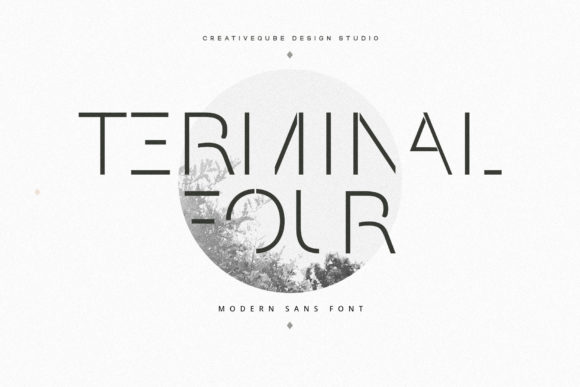
Terminal Four: A Bold, Modern Font for the Digital Age
In a world where visual communication is more important than ever, the right font can make all the difference. Terminal Four is a modern and cool display font that stands out with its clean, all-caps design. It’s not just another typeface—it’s a tool for making a statement. Whether you're designing a wedding invitation, a brand logo, or a digital poster, Terminal Four offers a fresh, contemporary look that resonates with today's aesthetic sensibilities.
The rise of minimalist design and bold typography has made fonts like Terminal Four increasingly relevant. In an era where attention spans are short and competition for visual impact is high, using a font that commands attention without being overwhelming is key. Terminal Four fits this need perfectly, offering a sleek, professional appearance that works across a variety of mediums and applications.
Why Terminal Four Matters in Modern Design
Design trends have shifted significantly in recent years. The move toward simplicity, clarity, and strong visual identity has led to a greater emphasis on typography. Fonts that are easy to read yet distinctive are now more valuable than ever. Terminal Four aligns with this trend by combining modernity with readability, making it ideal for both digital and print projects.
For professionals in fields like marketing, branding, and content creation, Terminal Four provides a versatile option that can be used in everything from social media posts to business cards. Its all-caps format ensures consistency and visual impact, while its clean lines make it suitable for a wide range of styles—from corporate to creative.
Businesses and entrepreneurs are also finding value in Terminal Four. In a competitive market, having a unique visual identity can set a brand apart. Using a font like Terminal Four helps create a memorable impression, reinforcing brand recognition and professionalism.
Trends Shaping the Demand for Modern Display Fonts
The increasing use of digital platforms has changed how people interact with text. From websites to mobile apps, the demand for visually appealing and functional typography has never been higher. Terminal Four meets this demand by offering a font that looks great on screens of all sizes, from desktop monitors to smartphones.
Another factor driving interest in fonts like Terminal Four is the growing preference for custom, unique designs. Generic fonts often feel impersonal, whereas custom or distinctive typefaces add personality and character. Terminal Four allows designers to express creativity while maintaining a professional edge, making it a go-to choice for those looking to stand out.
Moreover, the shift toward remote work and digital collaboration has made it easier for creators to access and use high-quality fonts. With cloud-based design tools and online font libraries, fonts like Terminal Four are more accessible than ever. This accessibility has contributed to their popularity among freelancers, small businesses, and independent creators who want to elevate their visual output.
Practical Applications of Terminal Four
Terminal Four is incredibly versatile, making it suitable for a wide range of projects. For example, in the wedding industry, it’s commonly used for invitations, signage, and stationery. Its bold, clean look adds a sense of elegance and sophistication, which is essential for special events.
In the realm of branding, Terminal Four can be used for logos, taglines, and promotional materials. Its all-caps format makes it ideal for creating strong, memorable brand identities. Many startups and established companies alike are turning to Terminal Four to give their brands a modern, cohesive look.
For educators and content creators, Terminal Four can enhance presentations, infographics, and educational materials. Its clear, readable design ensures that information is communicated effectively, whether it’s on a slide, a handout, or a digital platform.
How to Use Terminal Four Effectively
While Terminal Four is a powerful font on its own, it’s important to use it strategically. One of the best ways to leverage its strengths is to pair it with complementary typefaces. For instance, pairing it with a more traditional serif font can create a balanced, sophisticated look that works well for formal documents or websites.
Another tip is to use Terminal Four for headlines and key messages rather than body text. Its bold, all-caps style is most effective when used sparingly, allowing it to stand out without overwhelming the reader. This approach ensures that the font enhances the overall design rather than detracts from it.
Additionally, consider the context in which Terminal Four will be used. For digital projects, ensure that the font is optimized for web and screen readability. For print, check that it maintains its clarity and impact at different sizes and resolutions.
Terminal Four in the Broader Design Landscape
As trends continue to evolve, the demand for fonts that combine style with functionality will only grow. Terminal Four is well-positioned to meet this demand, offering a versatile and visually appealing option for anyone looking to elevate their design work. Whether you’re a seasoned designer or a beginner exploring typography, Terminal Four is a font worth considering for your next project.